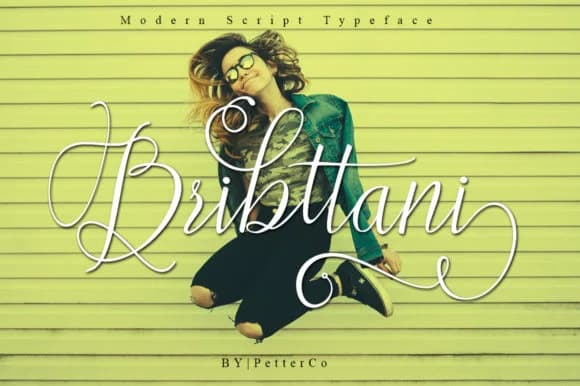
Bribttani Script Font by petterco.font is a flowing calligraphic typeface that bridges contemporary design sensibilities with timeless elegance. Its fluid letterforms carry the authentic warmth of handwritten penmanship while maintaining a refined, sophisticated edge that translates beautifully across both traditional print applications and digital environments.
This script excels in intimate, personalized projects that call for a distinctive touch of refinement. Whether you're designing wedding invitation suites with coordinated envelope liners, creating custom stationery sets for boutique businesses, developing product labels for artisanal and handmade goods, or designing packaging that reflects upscale branding, Bribttani brings sophisticated character to each application. The font's balanced stroke weight ensures elegant readability even when used at smaller display sizes, making it equally effective for social media graphics featuring inspirational quotes, professional signature treatments in client communications, or decorative headers in editorial design.
The thoughtful character set supports smooth, naturally flowing letterwork that achieves elegance without veering into excessive ornamentation. Whether deployed as a headline treatment for magazine spreads or as the foundation for bespoke branding systems, Bribttani Script proves itself a genuinely sophisticated choice for designers seeking reliable script functionality married with modern sensibility. Explore what this elegant typeface can bring to your next design by adding Bribttani Script to your Creative Fabrica library.
Bribttani Script Font is a script font that shines as a display or heading face. Pair it with a clean sans-serif or serif font for body text β the contrast creates a clear hierarchy while the two styles stay balanced and easy to read.